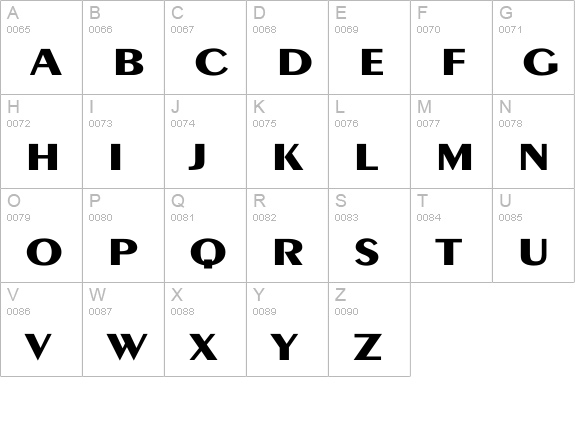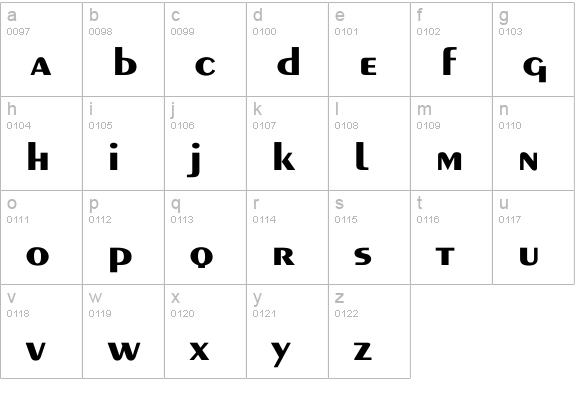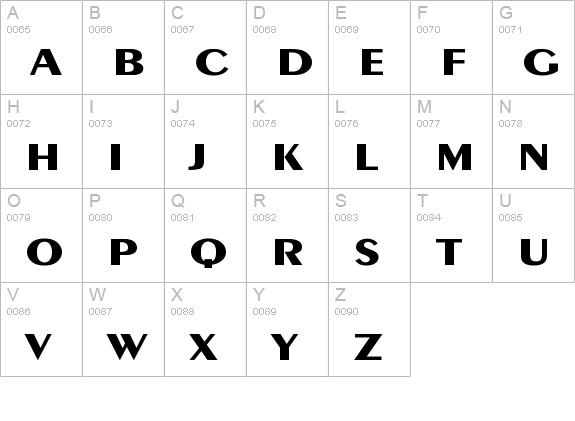
Exotic-Bold Wd Font Details
Exotic-Bold Wd is a strong, high-contrast variant in the Exotic typeface family \xE2\x80\x94 well suited to headlines, attention-grabbing titles, and strong calls-to-action.
The Exotic-Bold Wd font is a stunning display typeface that exudes a sense of exoticism and boldness. With its unique and eye-catching design, this font is perfect for making a statement in your projects. The thick, bold strokes of Exotic-Bold Wd demand attention and add a touch of sophistication to any design. The best part is that Exotic-Bold Wd is available for free download at FontsMarket.com. This means you can easily access this striking font and use it in your personal or commercial projects without any cost. Whether you're working on a branding project, poster design, or any other creative endeavor, Exotic-Bold Wd is sure to elevate your work and leave a lasting impression. Download it now and add a touch of exotic boldness to your designs!